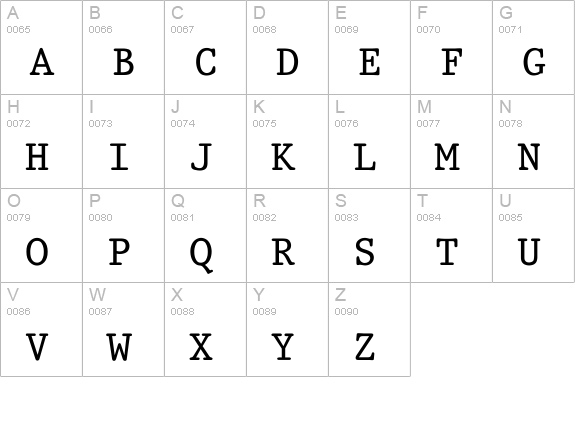
Prestige Font Details
Introducing Prestige font, a sleek and elegant typeface designed to add a touch of sophistication to your projects. With its clean lines and modern style, Prestige is perfect for branding, logos, headlines, and more. This versatile font exudes professionalism and class, making it ideal for a wide range of design applications. The best part? Prestige font is completely free to download at FontsMarket.com! Now you can elevate your designs without breaking the bank. Don't miss out on the opportunity to enhance your projects with this exquisite typeface. Download Prestige font today and let your creativity shine.